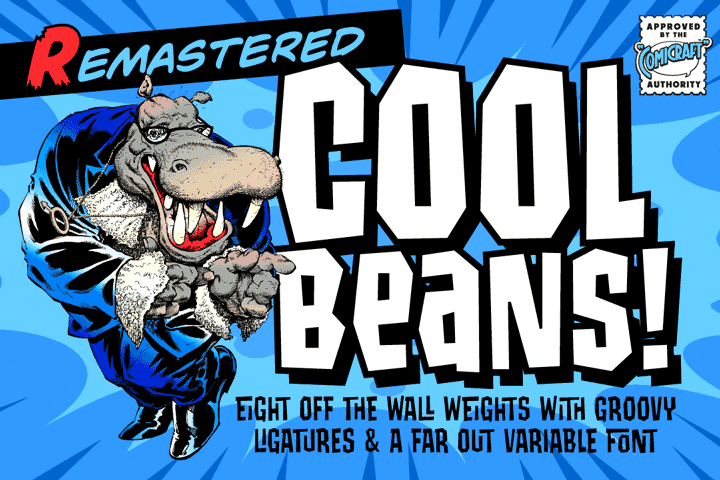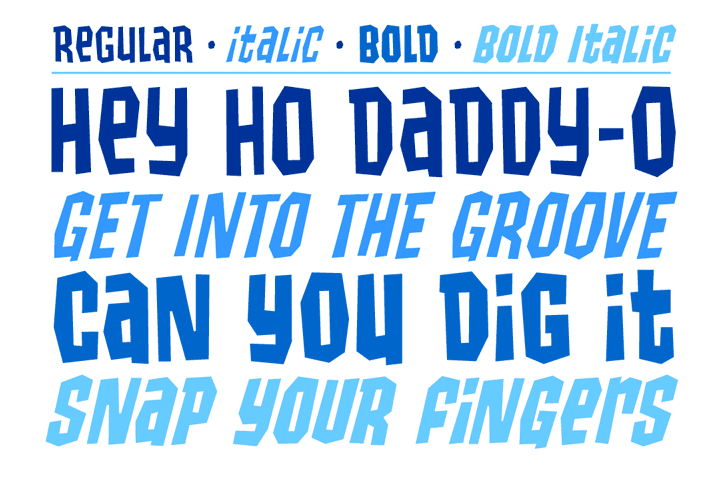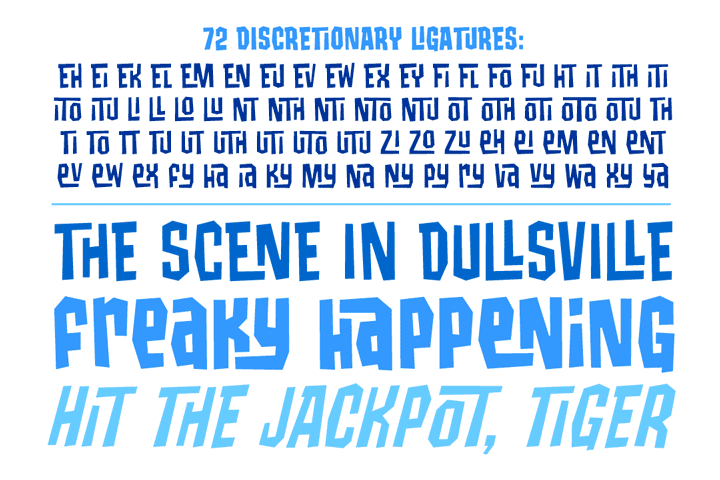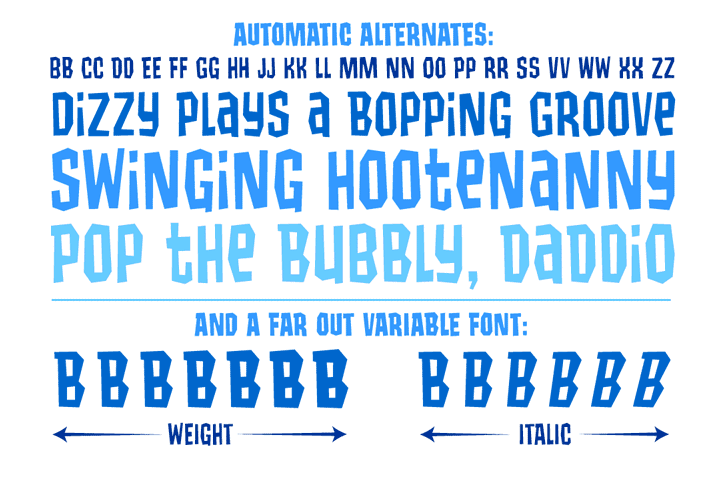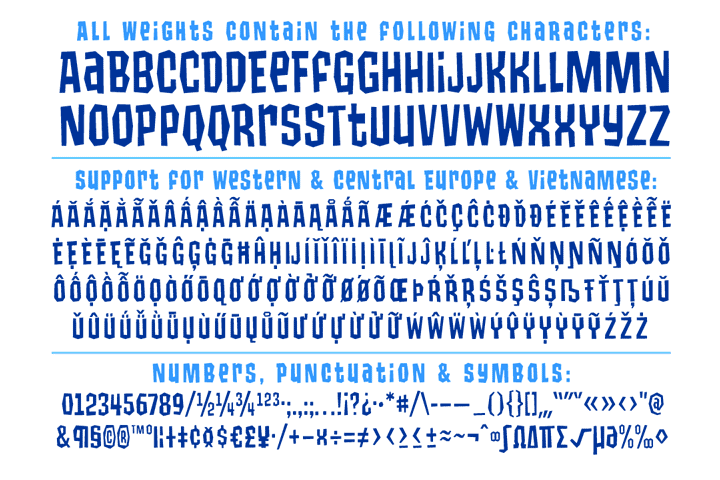
Cool Beans
Cool Beans font
COOL BEANS... Can you dig it, man? Comicraft's Jazzy "JG" Roshell, just swung by after playing bongos down at the coffee bar in his black turtleneck sweater, stove-pipe trousers, dark glasses and beret.
Check out the rad Tiki corners on our freshest font, COOL BEANS and you'll want to snap your fingers, put on some Miles Davis and take the next train out of Squaresville, um, Daddio.
• Eight weights with upper & lowercase
Plus: Automatic Alternates & Connecting Ligatures and Variable font with Weight & Italic slant axes